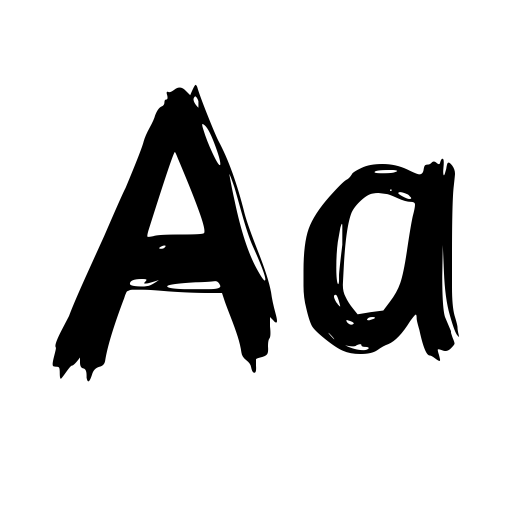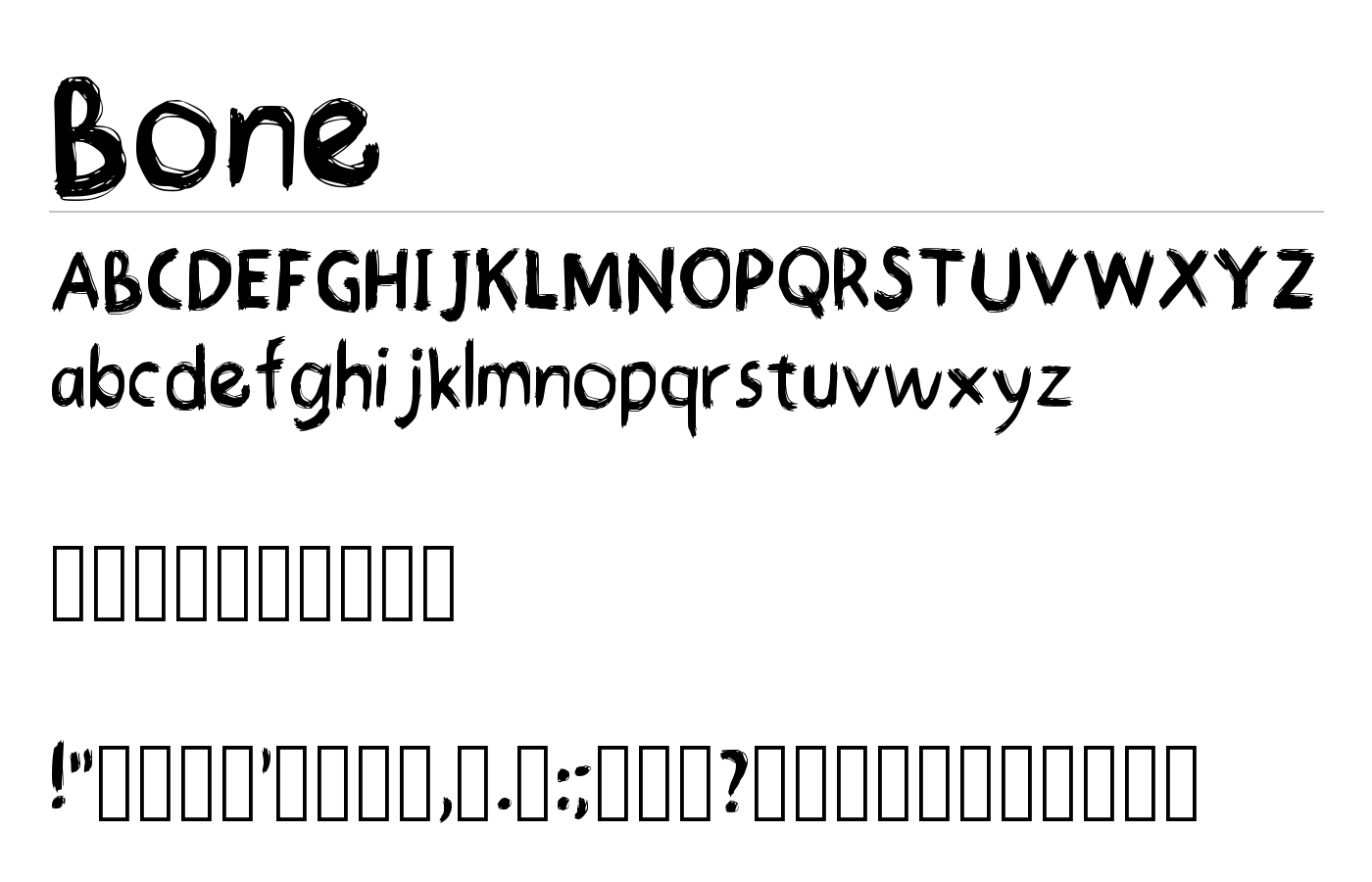
Bone Font is a playful and casual hand-drawn sans serif typeface with rough, textured strokes that create a lively, energetic feel. Its irregular shapes and uneven lines give it a natural, informal vibe, making it perfect for creative projects, children’s materials, or anything that needs a fun and approachable look. This font works best in headlines, posters, and branding where a unique, friendly personality is desired.
Bone Font